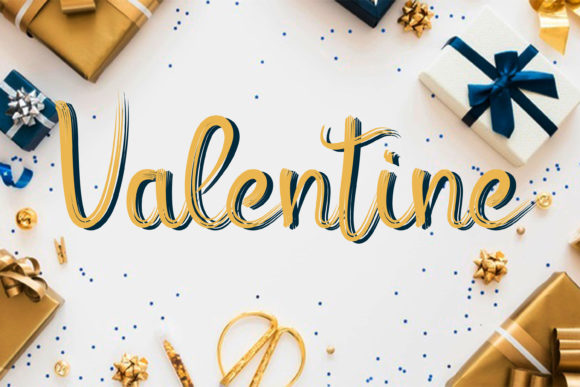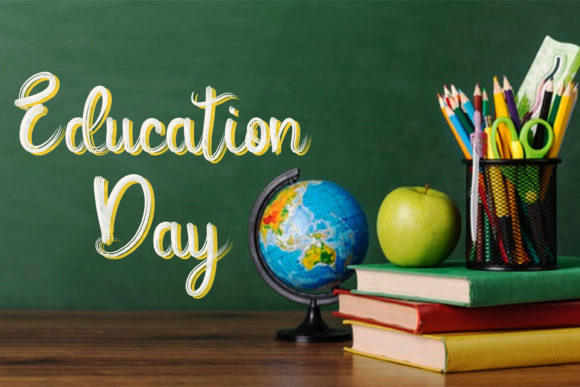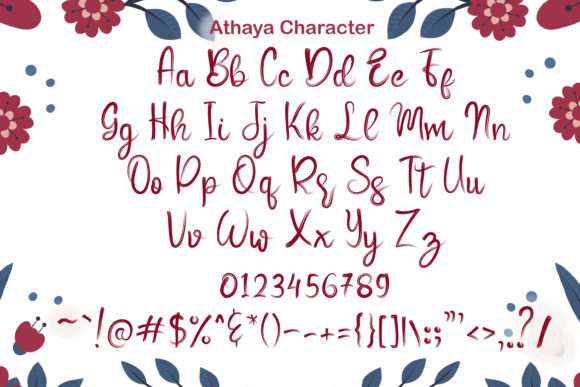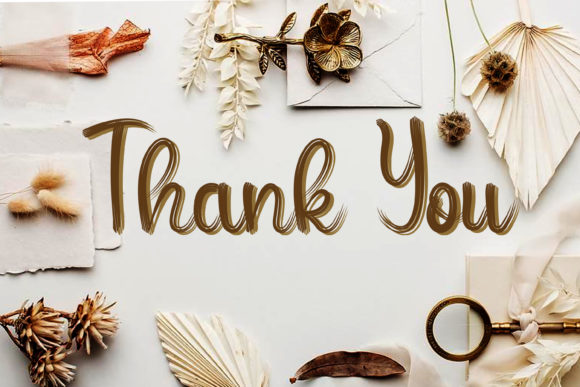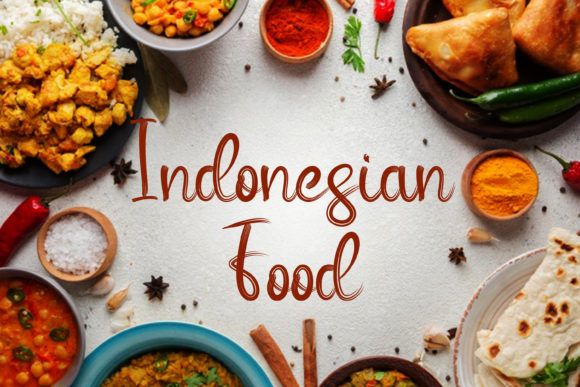
About Athaya Font
Athaya is a beautiful and well-balanced script font made for paint brushed. It works great for packaging products, invitation cards, greetings, flyers, mockups, event posters and all aspects that require high-quality vibes.